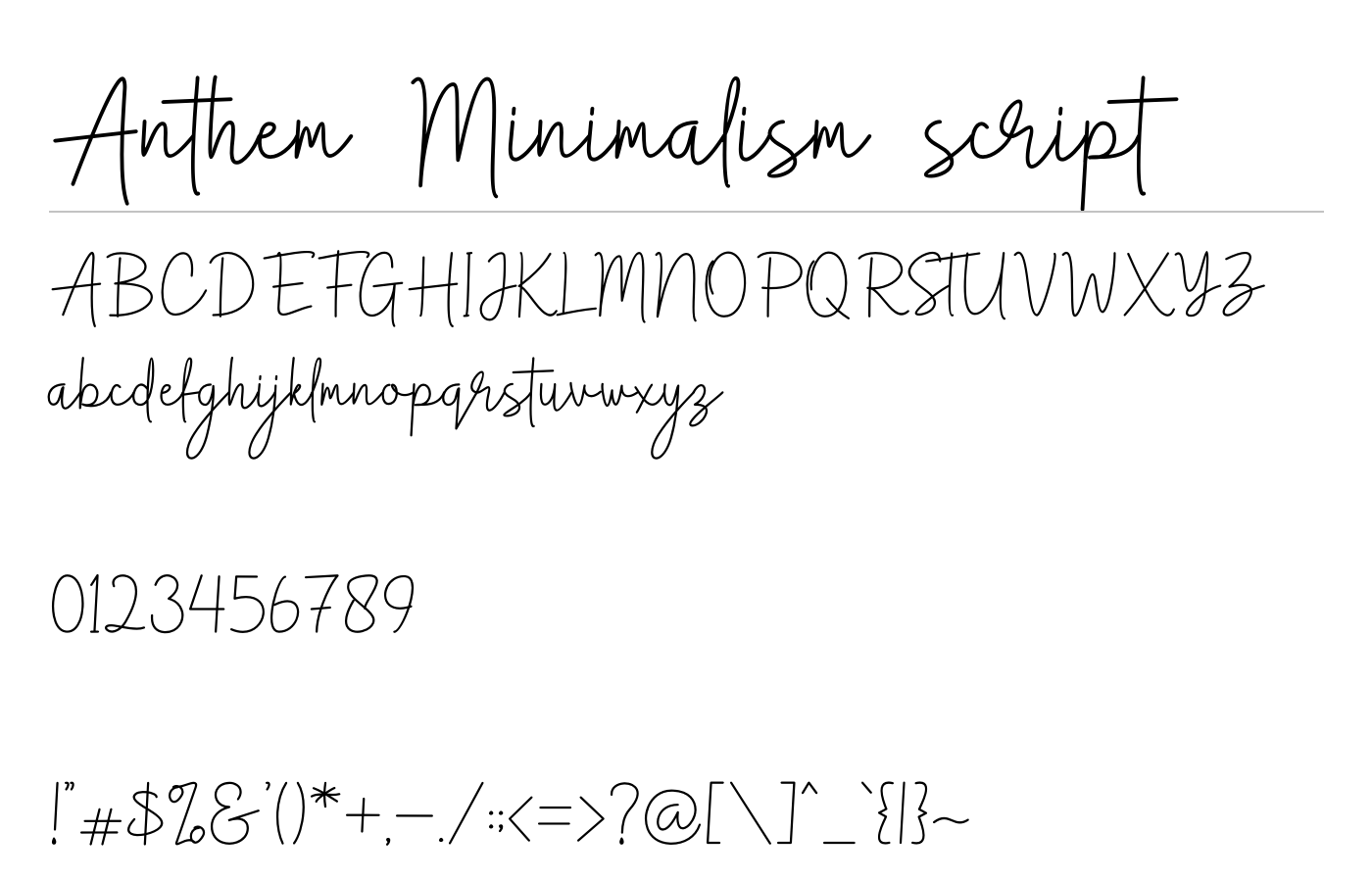
Anthem Minimalism Script is a delicate, handwritten-style font featuring slender, elegant strokes with a natural, flowing feel. Its tall, narrow letterforms and consistent light weight give it a refined, minimalist charm that works beautifully for personal branding, invitations, and modern editorial designs. This font conveys a warm, approachable personality while maintaining a sleek, contemporary look perfect for stylish, understated projects.
Anthem Minimalism script Font
About Anthem Minimalism script Font
| Font family | Anthem Minimalism script Font |
| Designer | ahmad faizin |